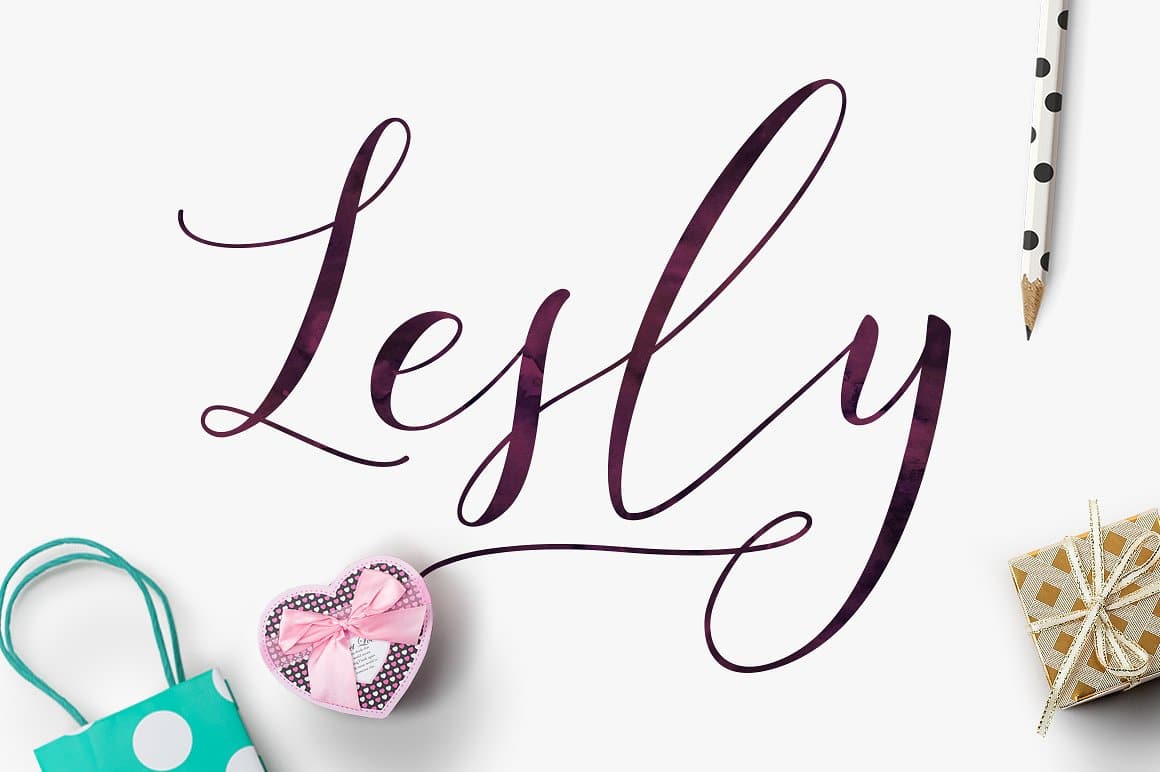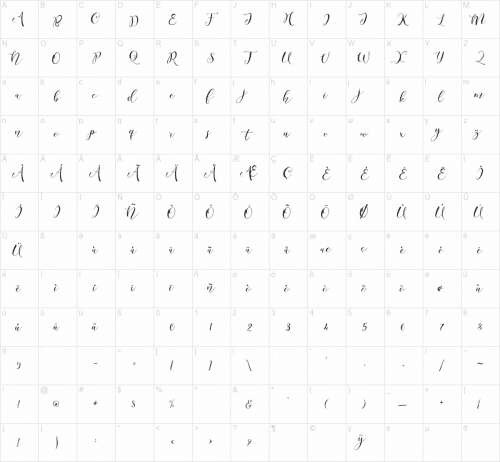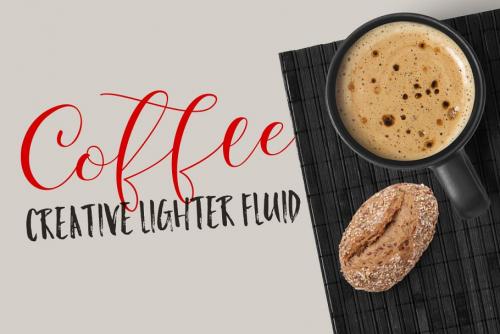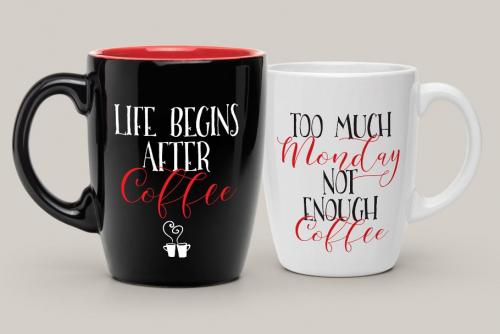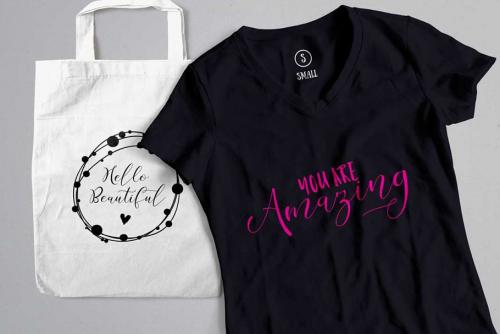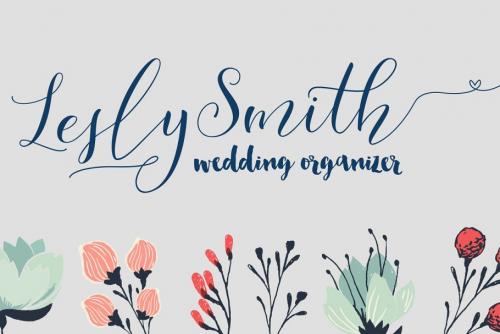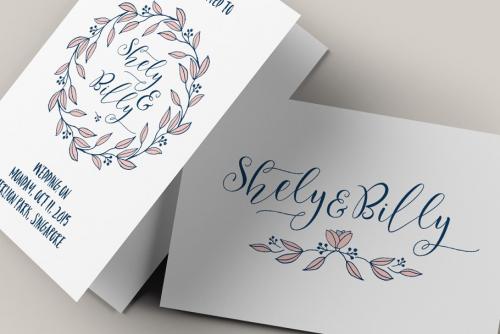
Lesly is handmade script font cooked with feeling. Including a tons of glyphs, alternates, ligatures.
Can be used for various purposes; headings, signature, logos, wedding invitation, t-shirt, signage, lable, posters, badges etc. To enable the OpenType alternates, you need a program that supports OpenType features such as Adobe Illustrator CS, Adobe Indesign, Microsoft Word 2010 or later versions.
- Designer: mysunday